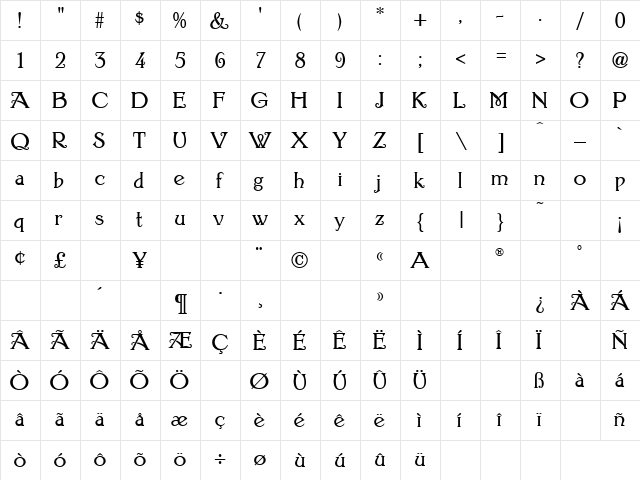
Giraldon Normal
Design Context for Giraldon Typeface
Giraldon offers clean, dependable letterforms without strong stylistic allegiance, making it a practical choice for designers who need flexibility.